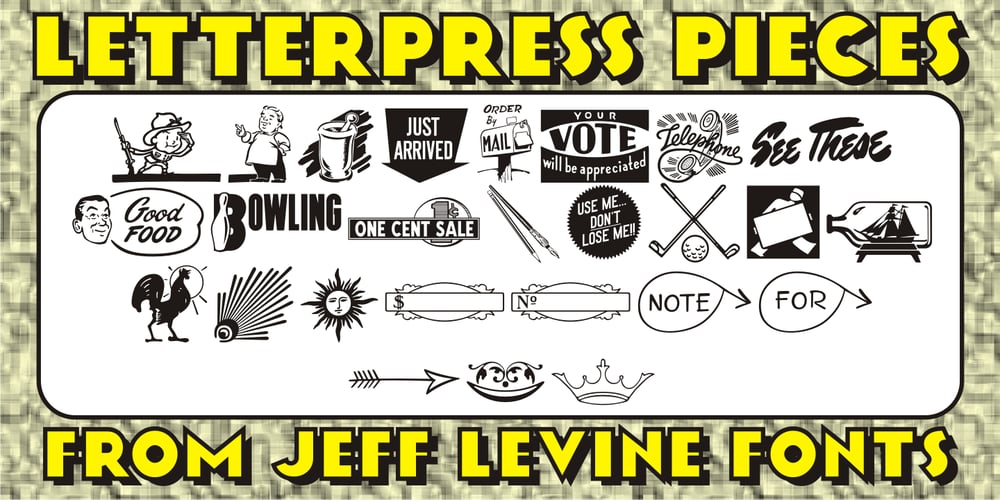
Letterpress Pieces JNL Font Family was designed by Jeff Levine and published by Jeff Levine. Letterpress Pieces JNL contains 1 styles and family package options. From cartoons to ad helpers to embellishments and ornaments, Letterpress Pieces JNL is another collection of vintage imagery from the pre-computer era of printing and advertising.